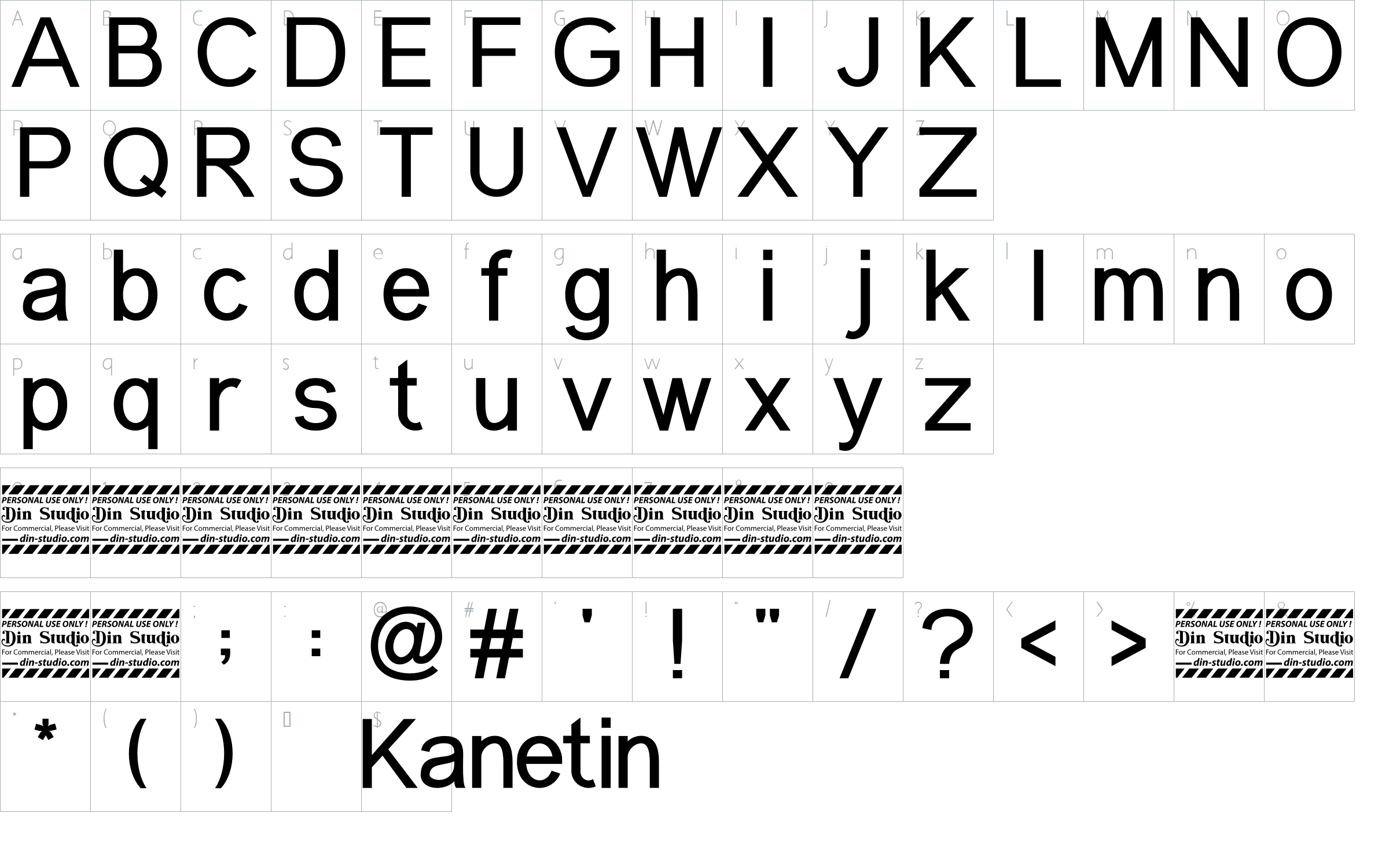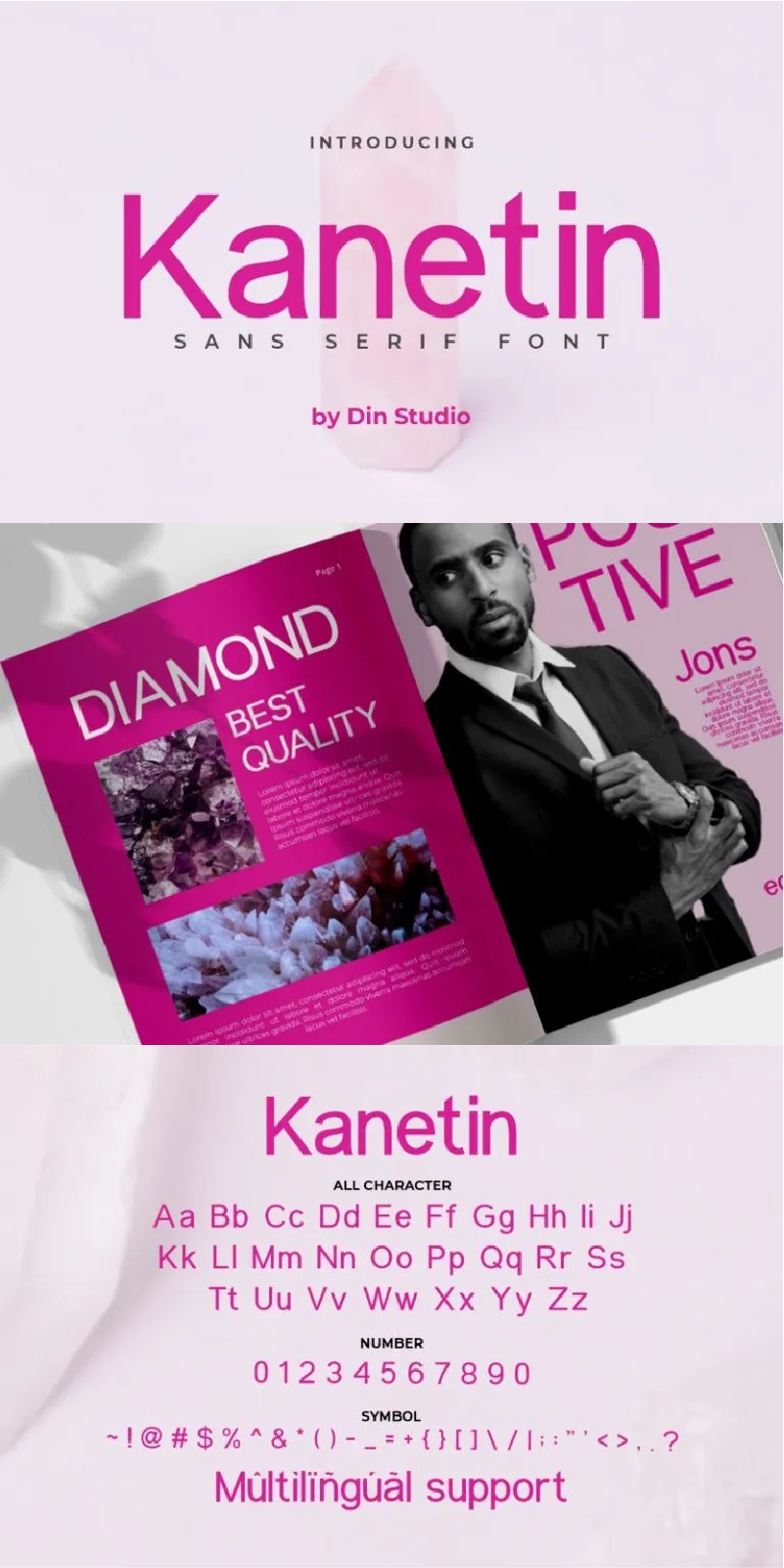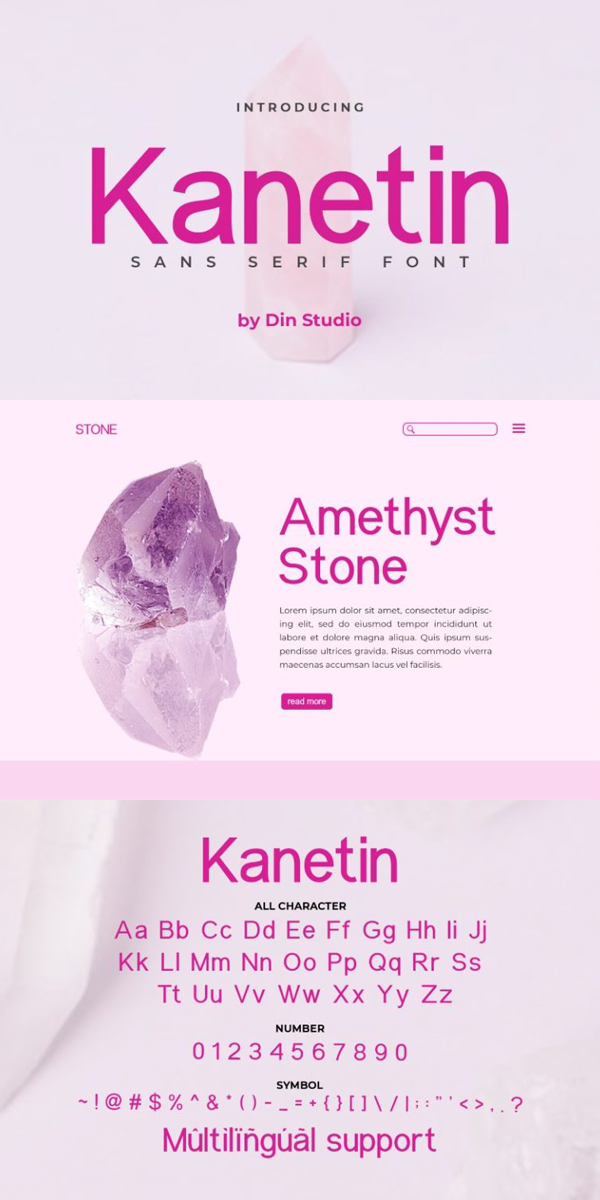
Kanetin Font
About Kanetin
Kanetin is a beautiful sans serif font made for any professional project brandings which is perfect for printings, brandings, and quotes. Every letter has a unique and beautiful touch. See the previews above to get some inspiration on how you can use them. Happy Designing!